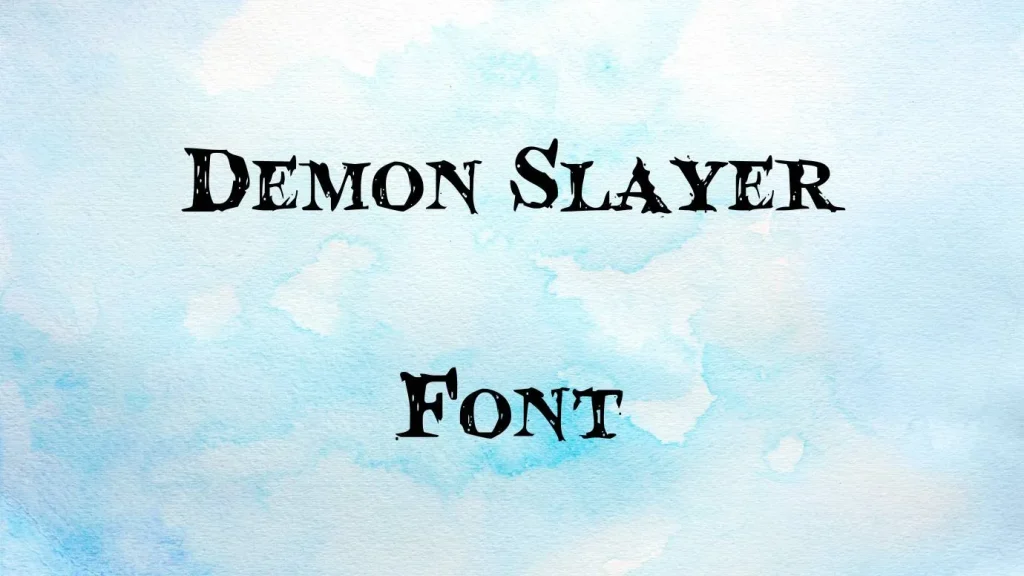
The Demon Slayer Font is a sleek and strong typeface with all caps, it makes a solid foundation for blossomed alternatives. These designs are unique and interlock beautifully. There are over 100 stylized alternatives, allowing for unlimited customization and titling possibilities.
Who Created the Demon Slayer Font?
Demon Slayer Font is basically an animated dark imaginary movie the font that has been used in the Demon Slayer is Blood Crow font which was designed by Daniel Zadorozny.
What Are the Qualities of Demon Slayer Font?
It can be used for the horror film premiere. Every game designer appreciates its value. In addition to web development, game development, logo design, and infographics, you can use them for many other purposes.
For Halloween parties, this typeface can go with the horror theme. It can be used with the Thor Font. This font will give a scary look to your posters, T-shirts, etc. Through this typeface, users can give their content to haunted look by creating posters, banners, movie names, and much more.
It will give an attractive look to your work and it will stand out. There are no limits on using this typeface and no additional concerns for usage in personal projects. This fascinating typeface works best in postcards, magazine covers, brand designs, and sports-related product designs.
Variations of the Slayer Font
- Blood Crow
- Blood Crow Italic
- Blood Crow Condensed
- Blood Crow Condensed Italic
- Blood Crow Expended
- Blood Crow Expended Italic
- Blood Crow Leftalic
- Blood Crow Shadow
- Blood Crow Shadow Italic
- Blood Crow Shadow Condensed
- Blood Crow Shadow Condensed Italic
The font that has been used in the Demon Slayer is Blood Crow font which was designed by Daniel Zadorozny.
Through this typeface, users can give their content to haunted look by creating posters, banners, movie names, and much more.